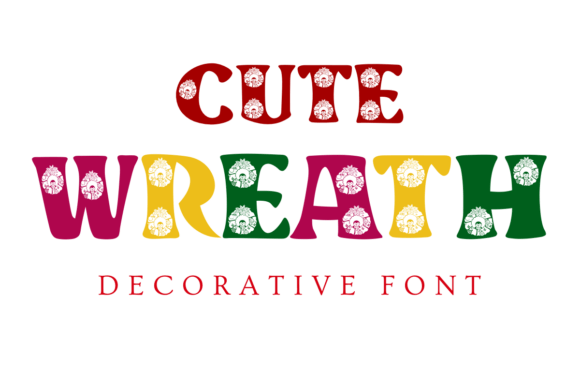
Cute Wreath Font: Add a Touch of Whimsy to Your Designs
The Cute Wreath Font is a delightful and decorative font that can add a touch of whimsy to any design project. Whether you’re taking notes, writing a diary, or creating greeting cards, this font is sure to bring a smile to your face. But its uses don’t stop there – the Cute Wreath Font can be used for a wide range of designs, from banners and content to mugs, cards, shirts, stationery, social media posts, and more!
What is the Cute Wreath Font?
The Cute Wreath Font is a unique and playful font that features a wreath-like design. Its delicate and intricate details make it perfect for adding a touch of elegance and sophistication to any design project. The font is highly versatile and can be used for both personal and commercial projects.
Uses of the Cute Wreath Font
The Cute Wreath Font is a versatile font that can be used for a wide range of design projects. Here are some ideas to get you started:
- Note-taking and journaling: Add a touch of personality to your notes and journals with the Cute Wreath Font. It’s perfect for writing down quotes, lyrics, or inspiration.
- Greeting cards: Create beautiful and unique greeting cards for special occasions like birthdays, weddings, and holidays.
- Banners and signs: Use the Cute Wreath Font to create eye-catching banners and signs for parties, events, or promotions.
- Mugs and ceramics: Add a personal touch to your mugs, cups, and ceramics with the Cute Wreath Font.
- T-shirts and apparel: Create custom t-shirts, hoodies, and other apparel with the Cute Wreath Font.
- Stationery and paper goods: Use the Cute Wreath Font to create custom stationery, notebooks, and paper goods.
- Social media posts: Add a touch of personality to your social media posts with the Cute Wreath Font.
Benefits of Using the Cute Wreath Font
The Cute Wreath Font offers a range of benefits, including:
- Unique and eye-catching design: The Cute Wreath Font features a unique and eye-catching design that is sure to stand out.
- Highly versatile: The font is highly versatile and can be used for a wide range of design projects.
- Easy to read: Despite its decorative nature, the Cute Wreath Font is easy to read and understand.
- Customizable: The font can be customized to suit your design needs, including changing the color, size, and style.
Tips for Using the Cute Wreath Font
Here are some tips for using the Cute Wreath Font:
- Use it sparingly: While the Cute Wreath Font is beautiful, it can be overwhelming if used excessively. Use it sparingly to add a touch of personality to your design.
- Pair it with other fonts: Pair the Cute Wreath Font with other fonts to create a unique and interesting design.
- Experiment with colors: Experiment with different colors to find the perfect combination for your design.
- Keep it simple: Don’t overcomplicate your design. Keep it simple and elegant to ensure the Cute Wreath Font is the focus.
The Cute Wreath Font is a beautiful and versatile font that can add a touch of whimsy to any design project. Its unique and eye-catching design makes it perfect for a wide range of uses, from note-taking and journaling to creating greeting cards and social media posts. With its highly customizable nature and ease of use, the Cute Wreath Font is a great addition to any designer’s toolkit.